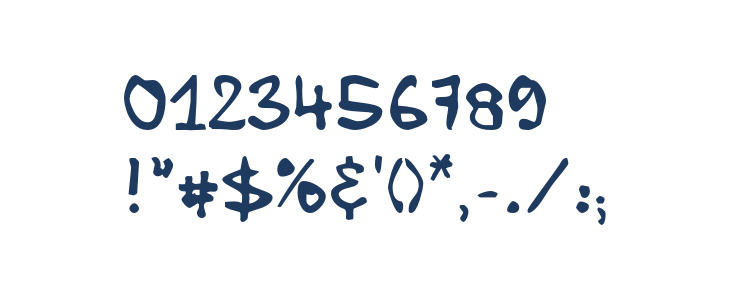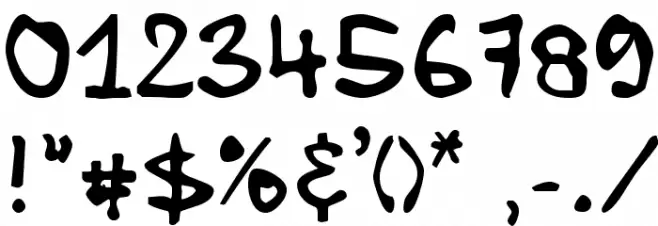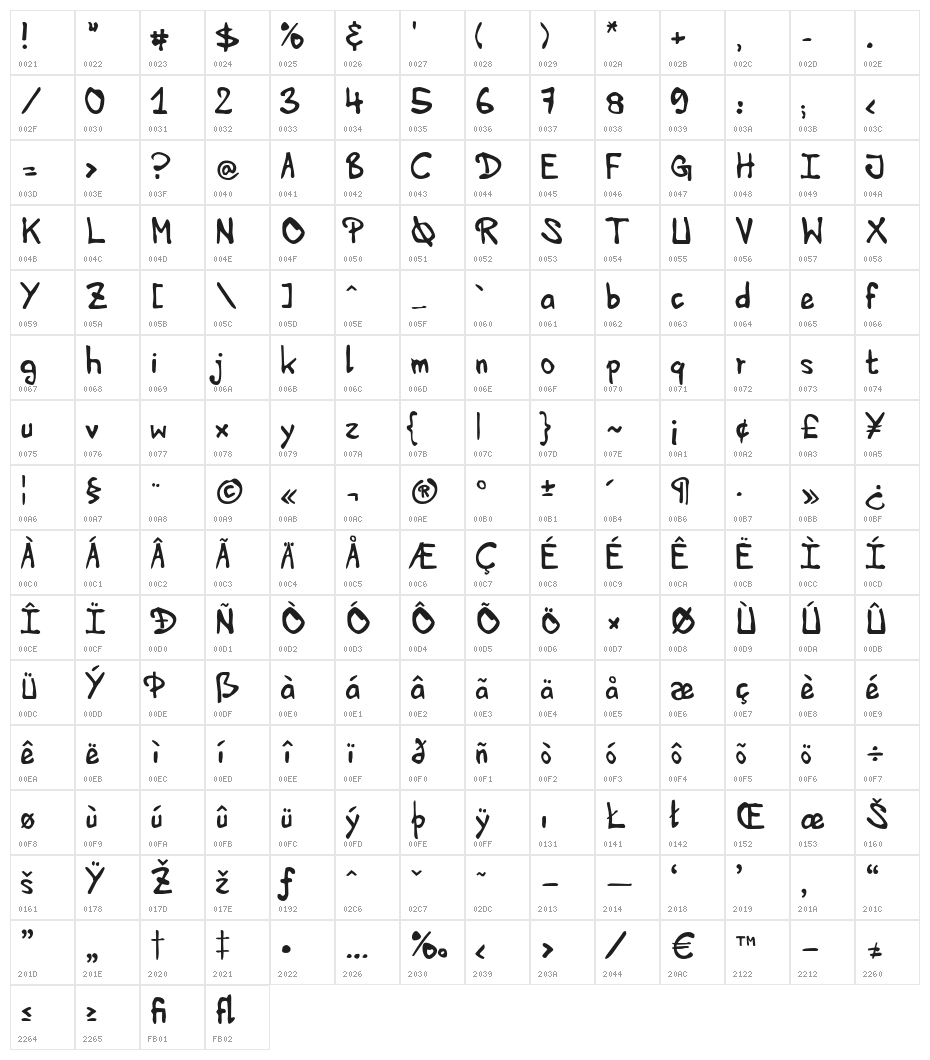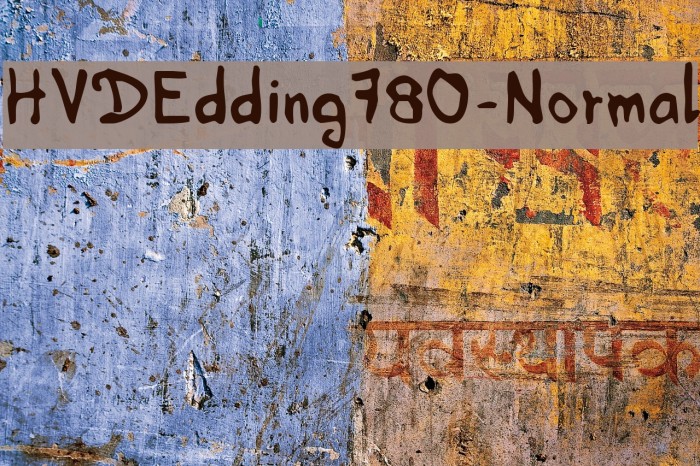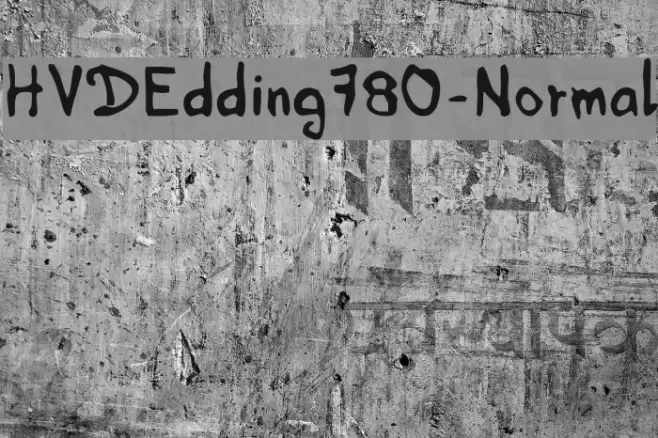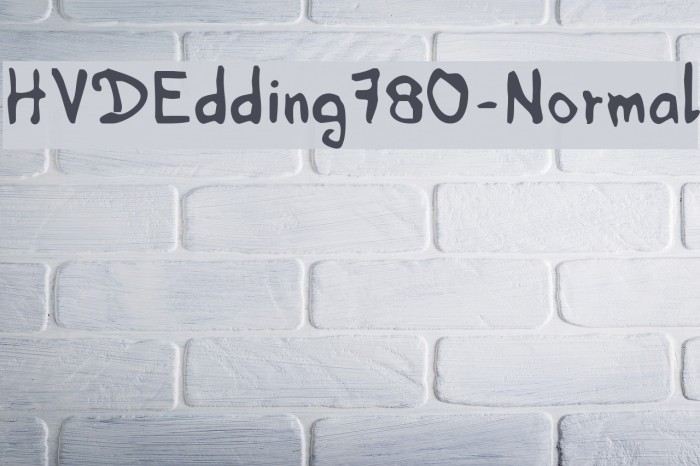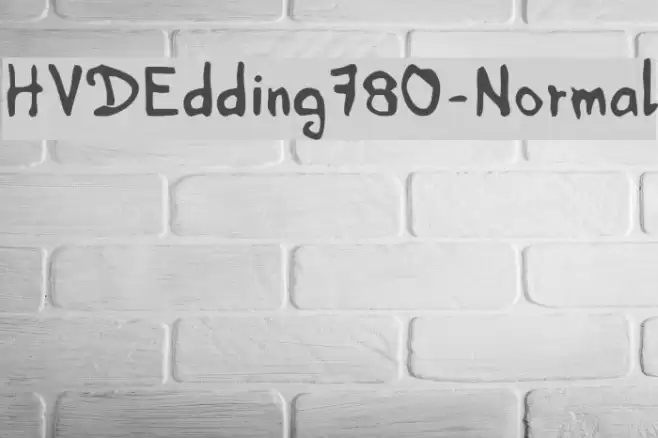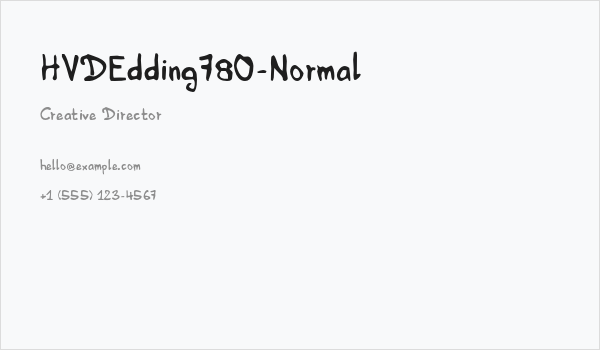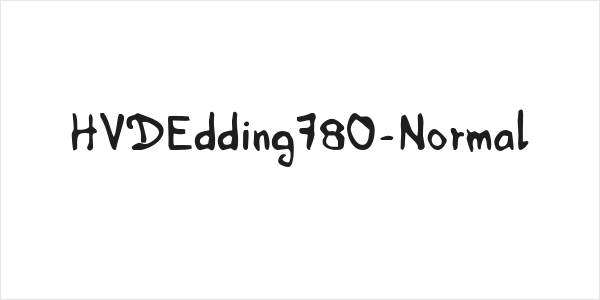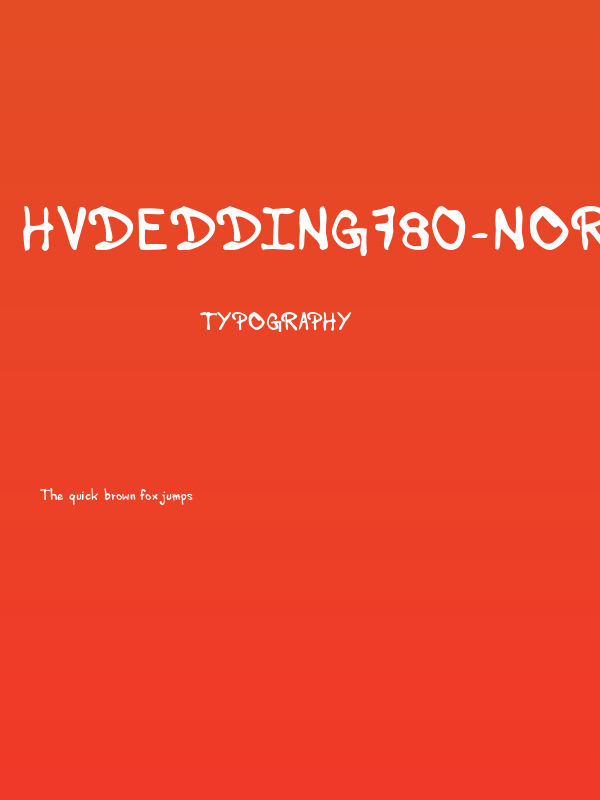
HVDEdding780-Normal Font
HVDEdding780-Normal Description
This font exhibits a playful and informal style, characterized by its hand-drawn appearance. The letters are bold and slightly irregular, giving a casual and approachable feel. The uppercase and lowercase letters maintain a consistent style, with rounded edges and varying stroke thicknesses that add to its whimsical nature. The numerals and special characters follow the same design principles, ensuring a cohesive look across all elements. This font's unique charm makes it suitable for projects that require a personal touch or a fun, creative vibe.
| Proposed Projects | Ideal for children's books, greeting cards, playful branding, or any project needing a whimsical touch. |